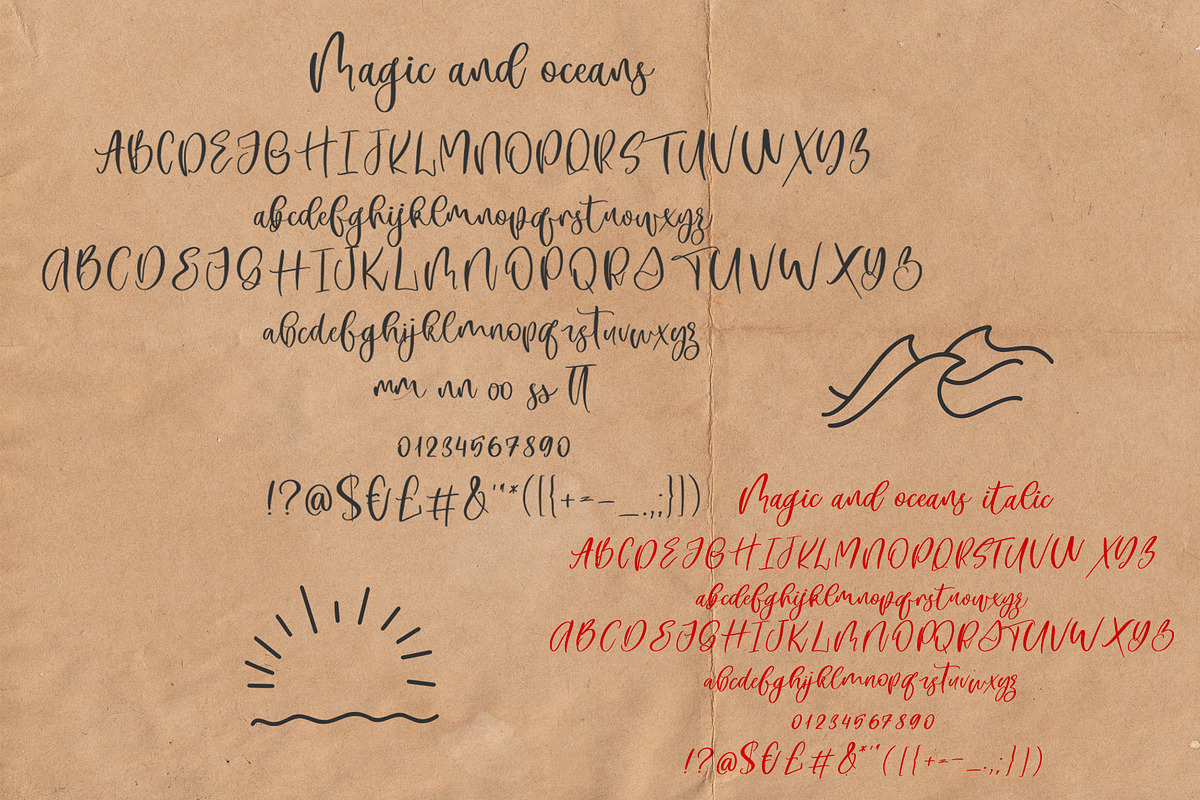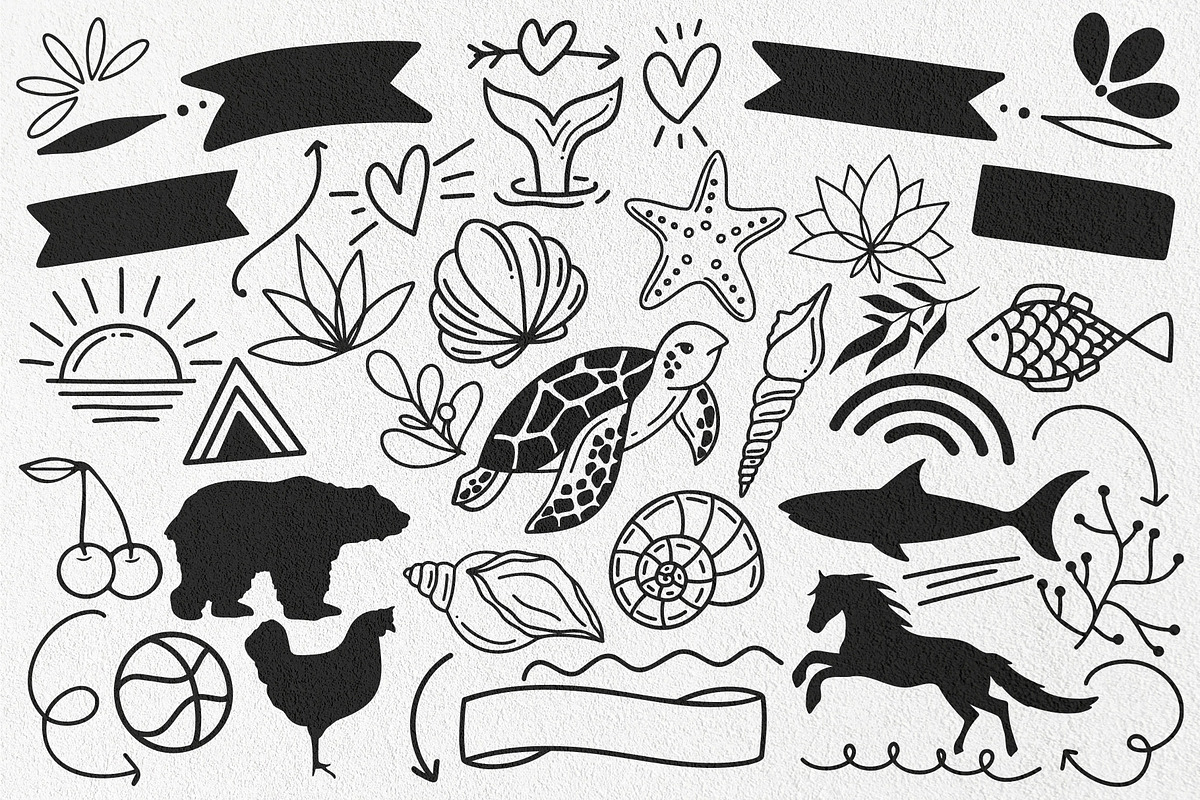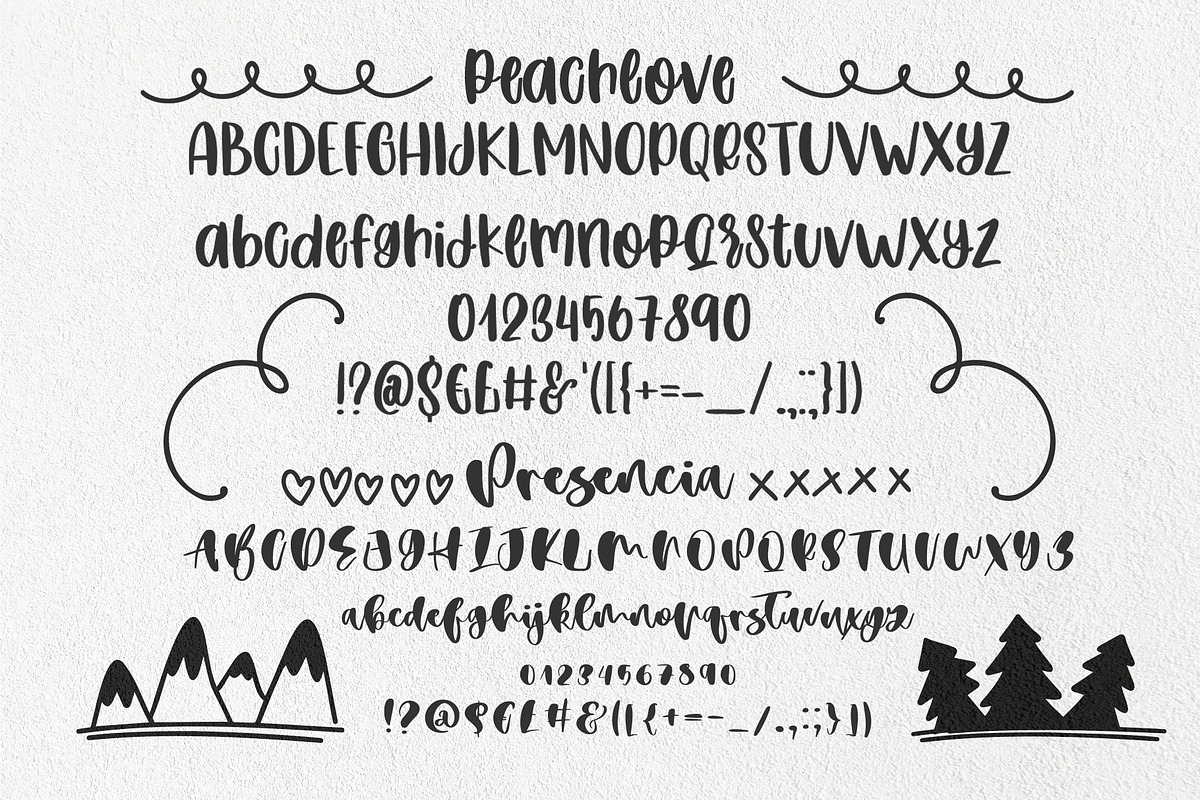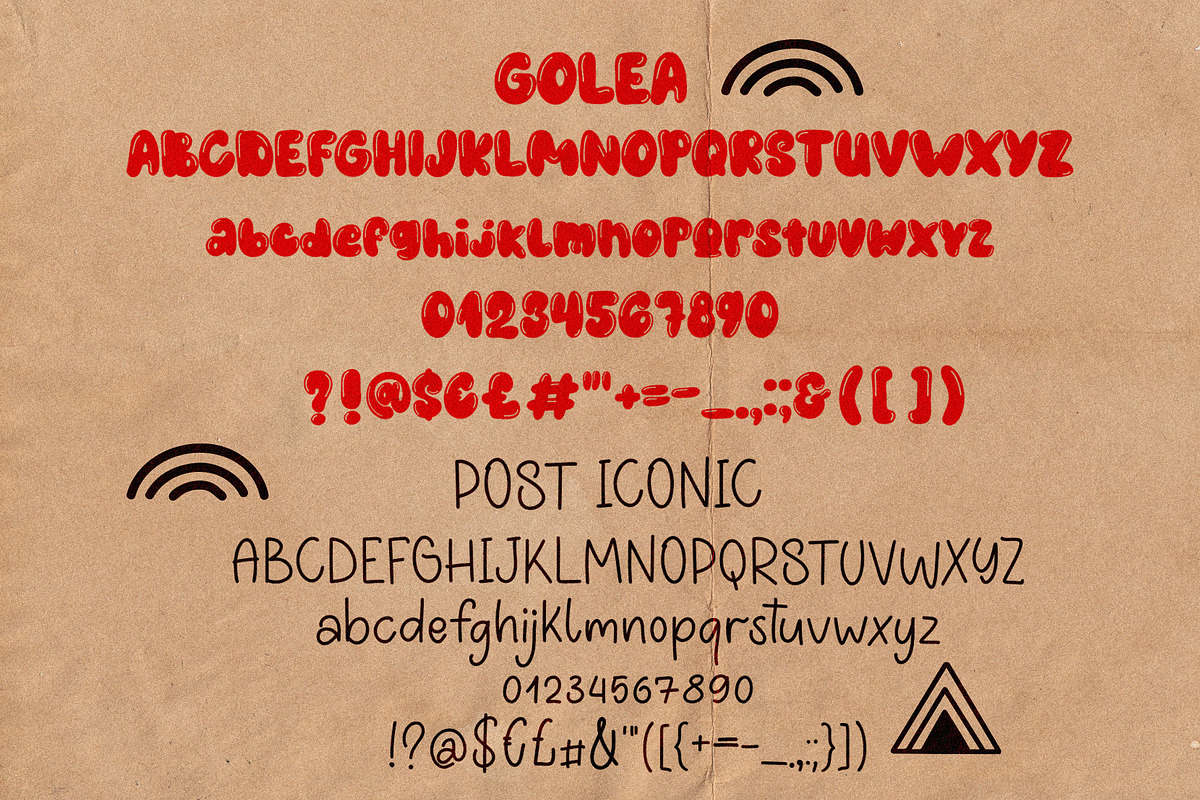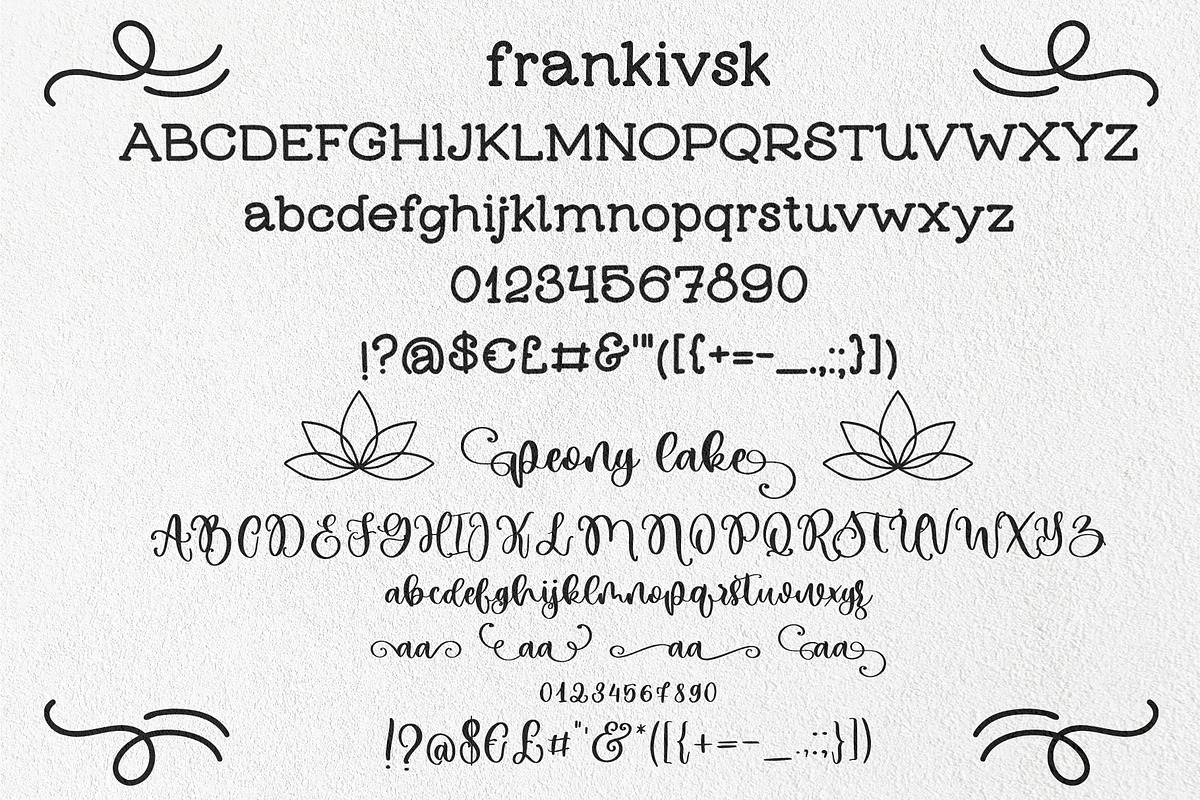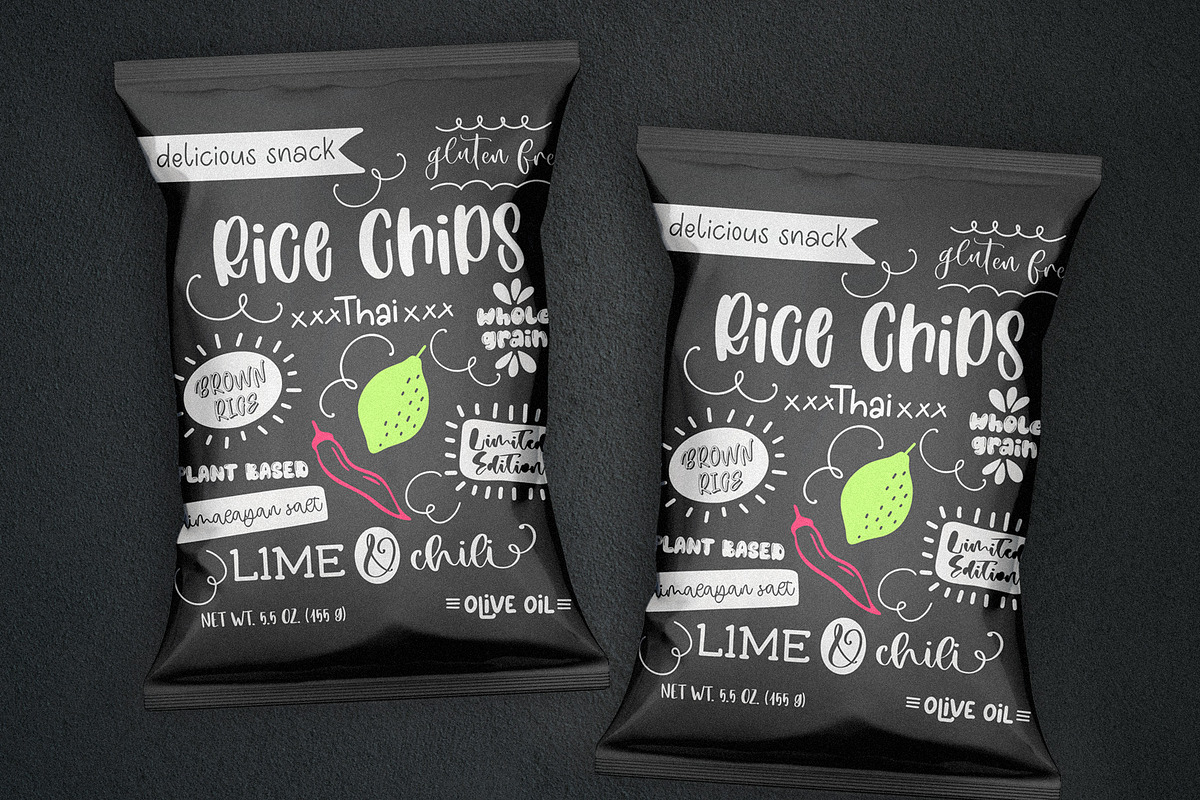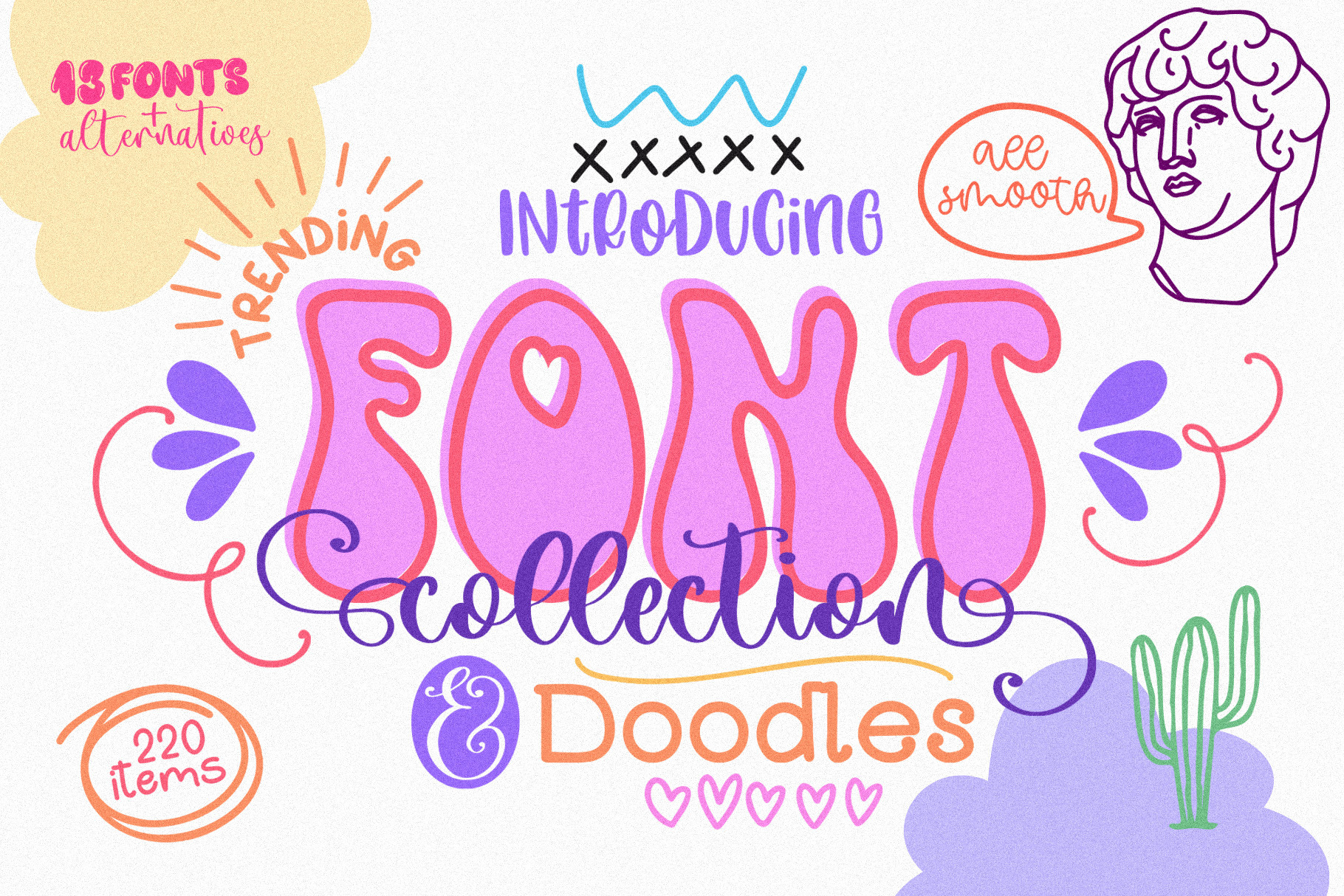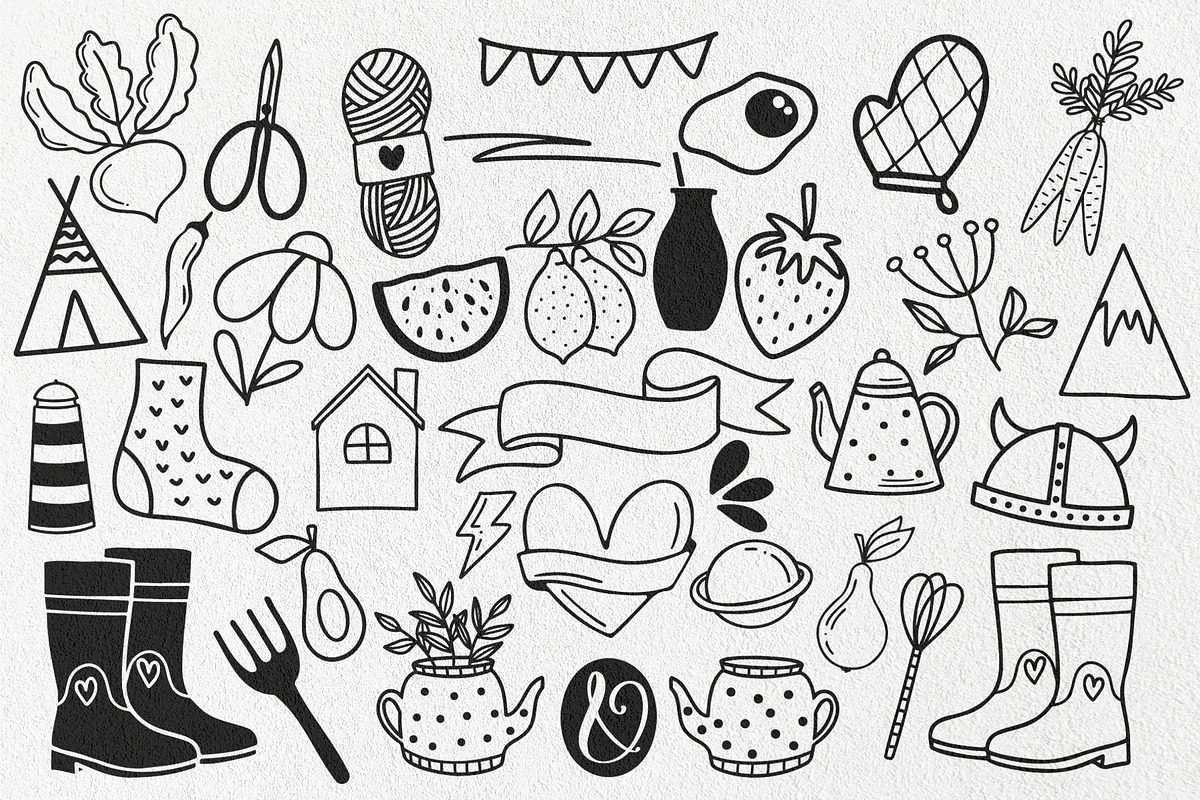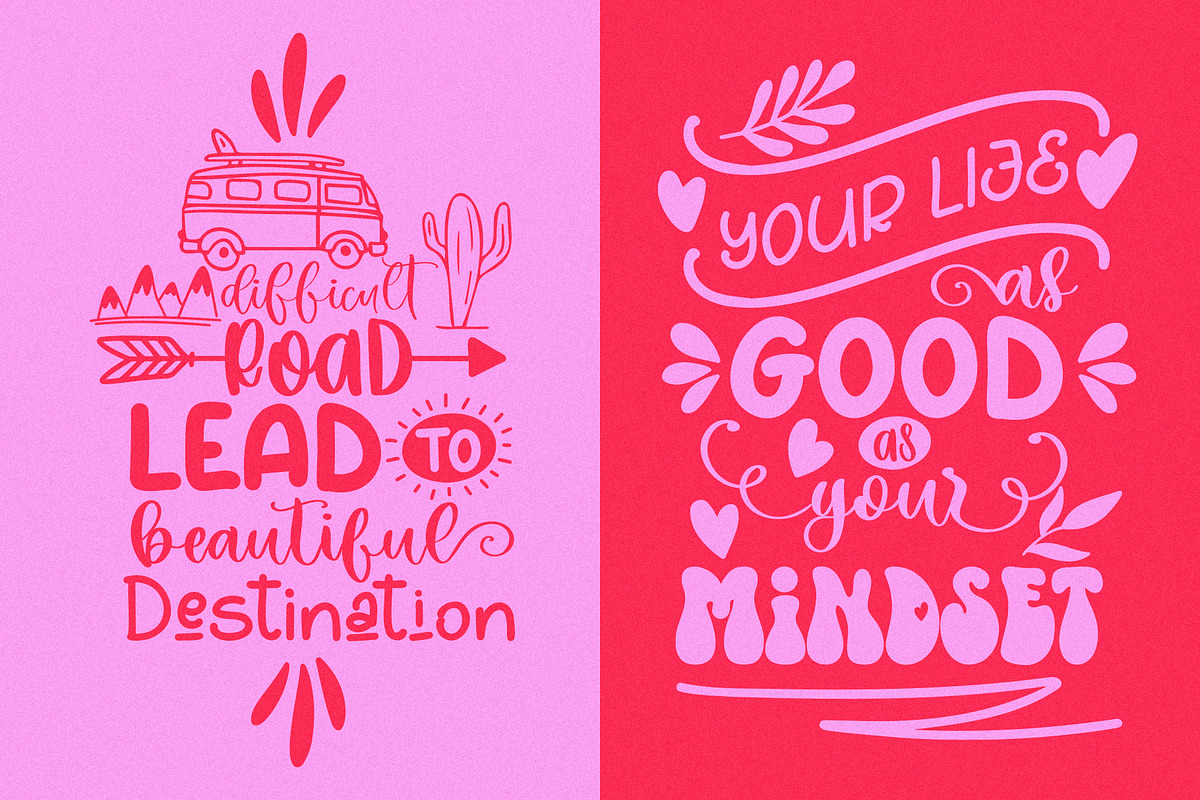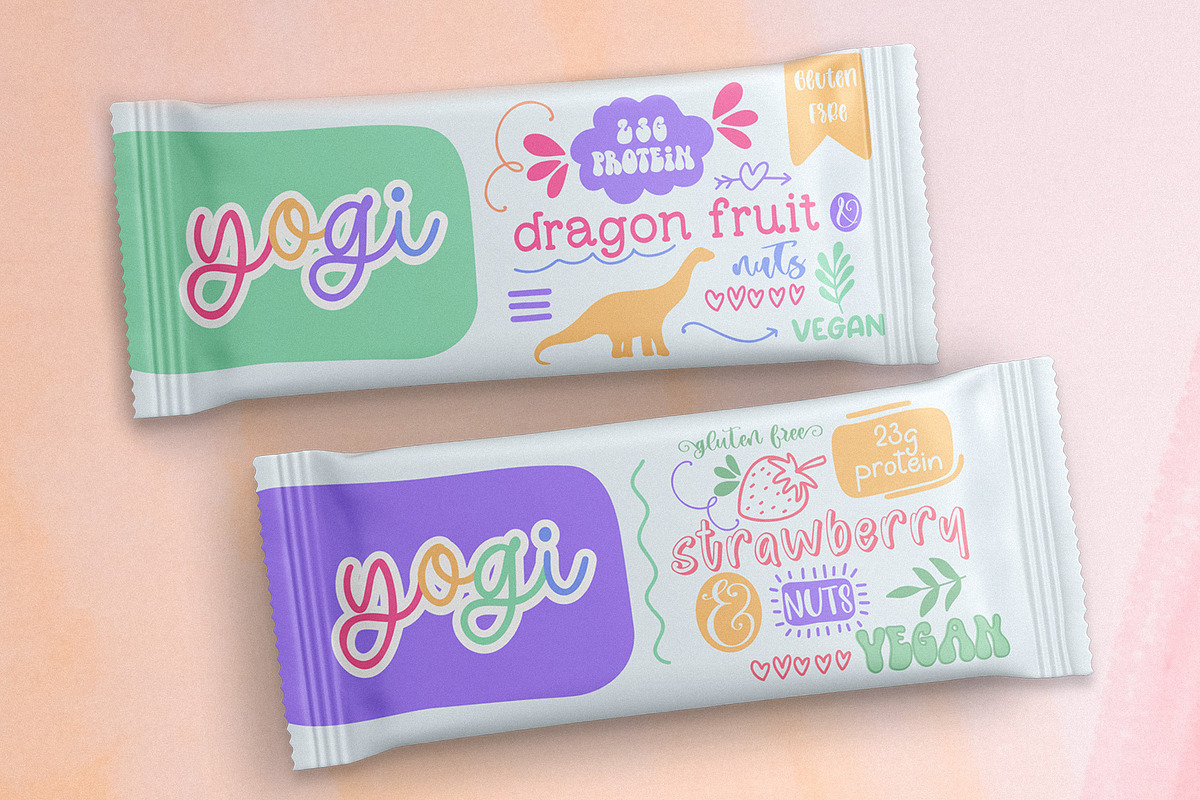
Fonts & Doodles trending collection
Collection of trending fonts and doodles that perfectly combine with each other. With this collection you can create a lot of designs for your projects, logos and content for your social media. All font and doodles are smooth, so easy to use for craft projects.
- Paphos Bay - cute handwriting script
- Amanecer - sans serif font with underlined alternates for vowels uppercase
- Peach Love -perfect to combine uppercase and lowercase
- Presencia - script font
- Frankivsk - beautiful serif font
- Magic and oceans - script font with alternatives
- Magic and oceans italic - italic script font with alternatives
- Post iconic - thin narrow handwriting font
- Mango island - handwriting font
- Peony lake - script font includes lowercase with different left and right swashes
- Surf Beach - beautiful shadow font
- Golea - bubbly font
- South heart - trendy groovy font
- South heart outline - outline groovy font